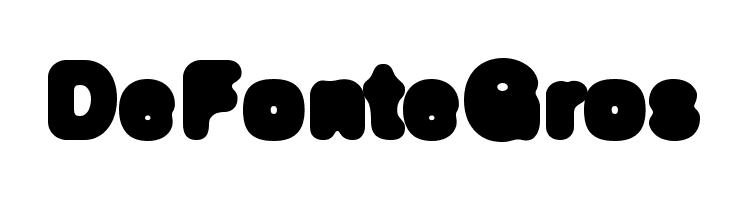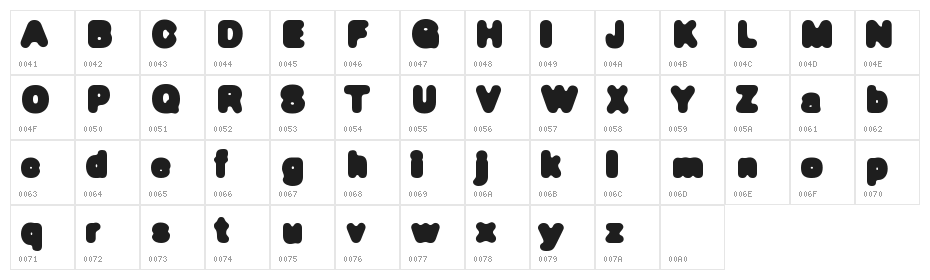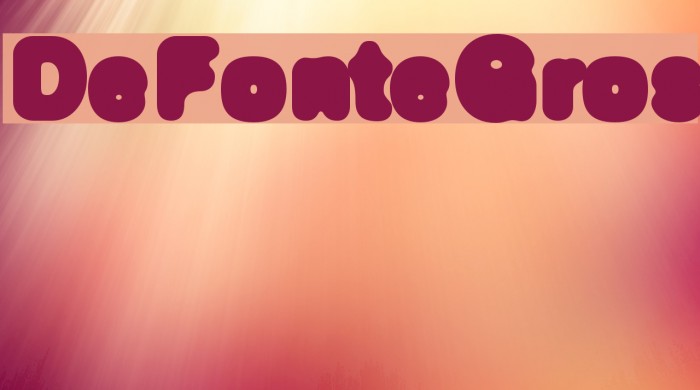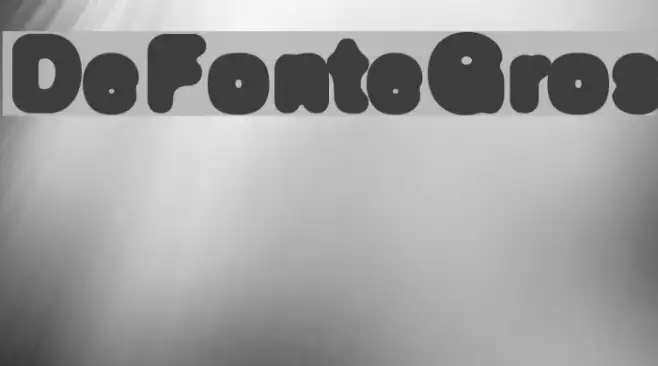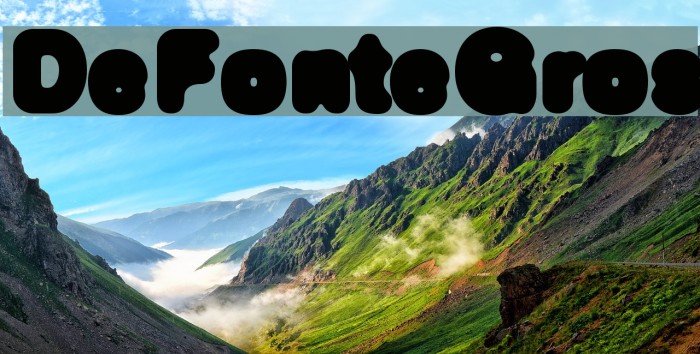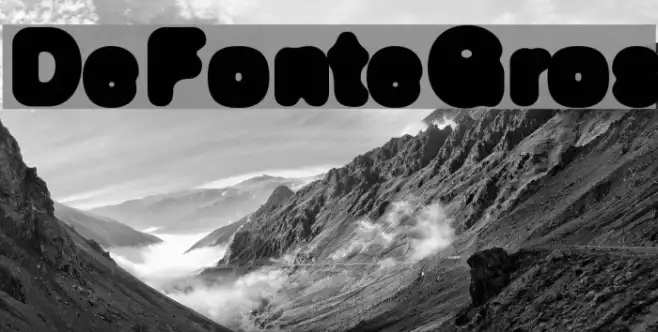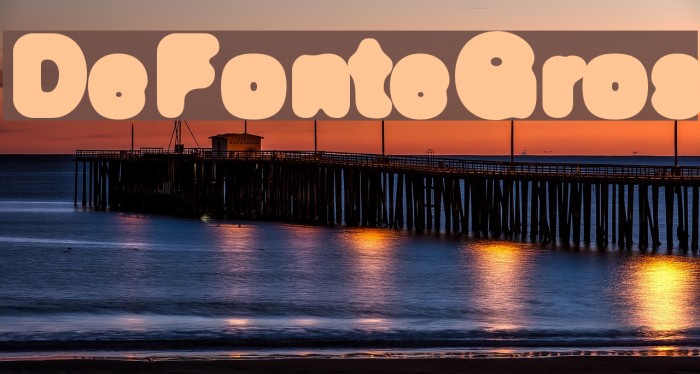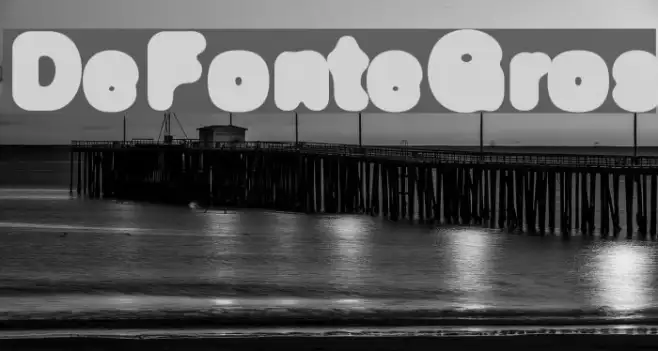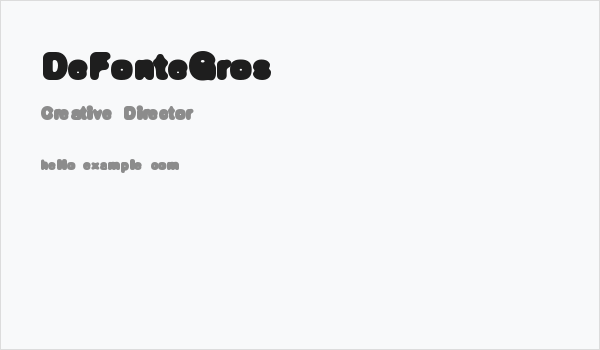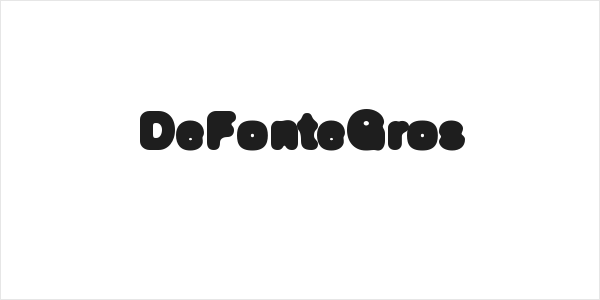
DeFonteGros Font
DeFonteGros Description
This playful and bold font features thick, rounded characters that exude a sense of fun and creativity. The letters are uniformly heavy, with a bubbly appearance that makes them stand out. Each character is designed with a consistent thickness, creating a cohesive look across both uppercase and lowercase letters. The font's unique style is characterized by its smooth curves and lack of sharp edges, giving it a friendly and approachable feel. Its distinctiveness makes it ideal for projects that require a touch of whimsy and boldness.
| Overall Style | Playful, Fun |